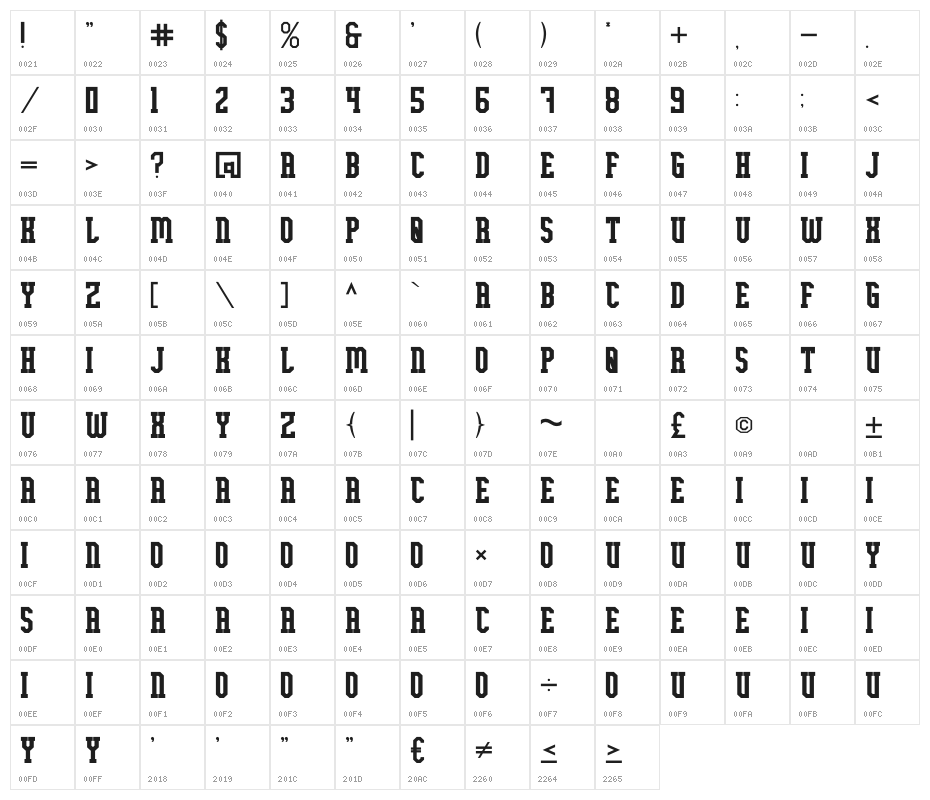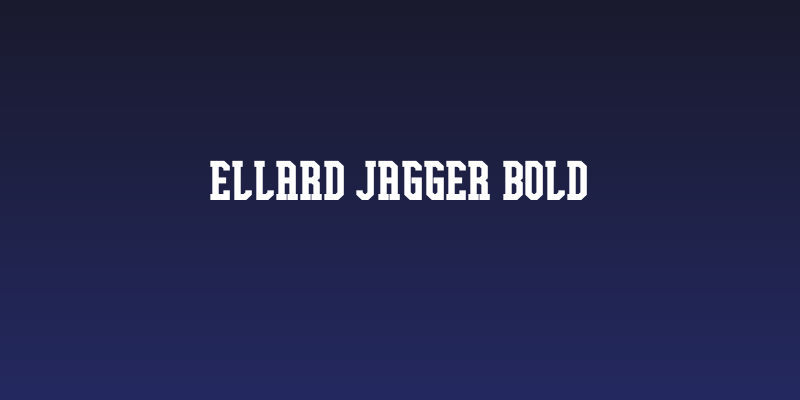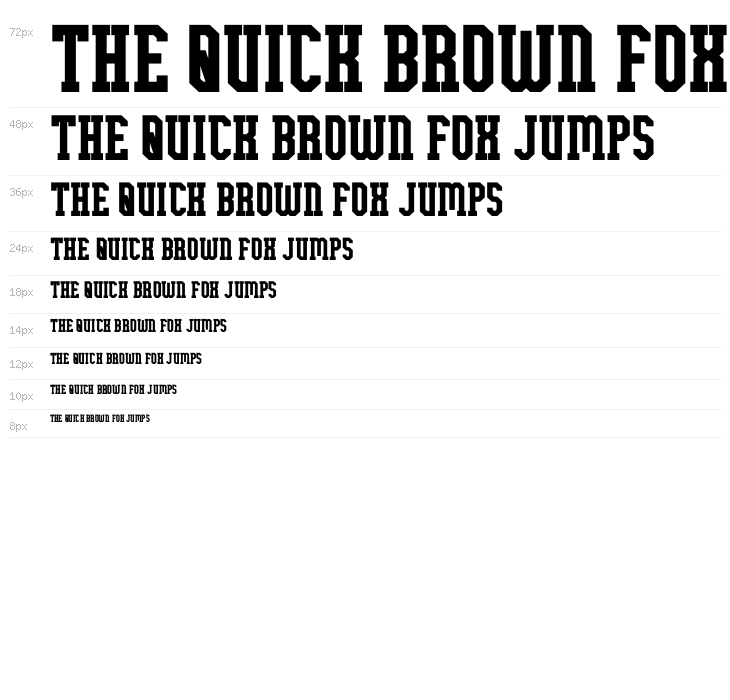
Ellard Jagger Bold Font
Ellard Jagger Bold Description
This font features a bold and robust design with strong geometric shapes and a distinct block-like appearance. The uppercase letters are characterized by their uniform height and width, giving a sense of stability and strength. The strokes are thick and consistent, creating a powerful visual impact. The numbers and special characters maintain the same boldness, ensuring a cohesive look across all elements. The font's style is reminiscent of vintage signage, making it ideal for projects that require a touch of nostalgia and authority.
| Proposed Projects | Ideal for branding, posters, signage, and any project needing a strong, vintage aesthetic. |